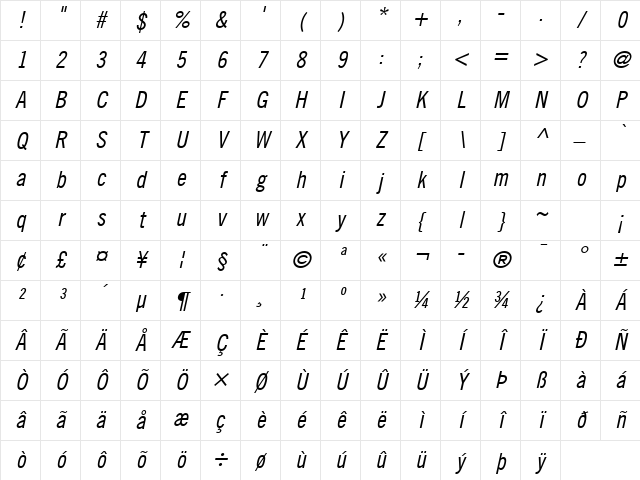
Trade Gothic LT Com Condensed No. 18 Oblique
Style: Condensed No. 18 Oblique
Designer: Jackson Burke
Design Context for Trade Gothic LT Com
Trade Gothic LT Com takes a clean, functional approach - its unadorned letterforms prioritise legibility and work reliably across screen and print environments. The slanted form adds forward momentum and visual energy. Its slender proportions lend an understated elegance to any composition. Its narrow stance lets it pack a punch even in space-constrained designs.
Font Pairing: Pair Trade Gothic LT Com with a medium or bold serif for headlines - the weight contrast creates an elegant, high-end feel.
Pro Tip: Use Trade Gothic LT Com tightly set in headlines and banners - its condensed proportions make it ideal for maximum impact in minimum horizontal space.